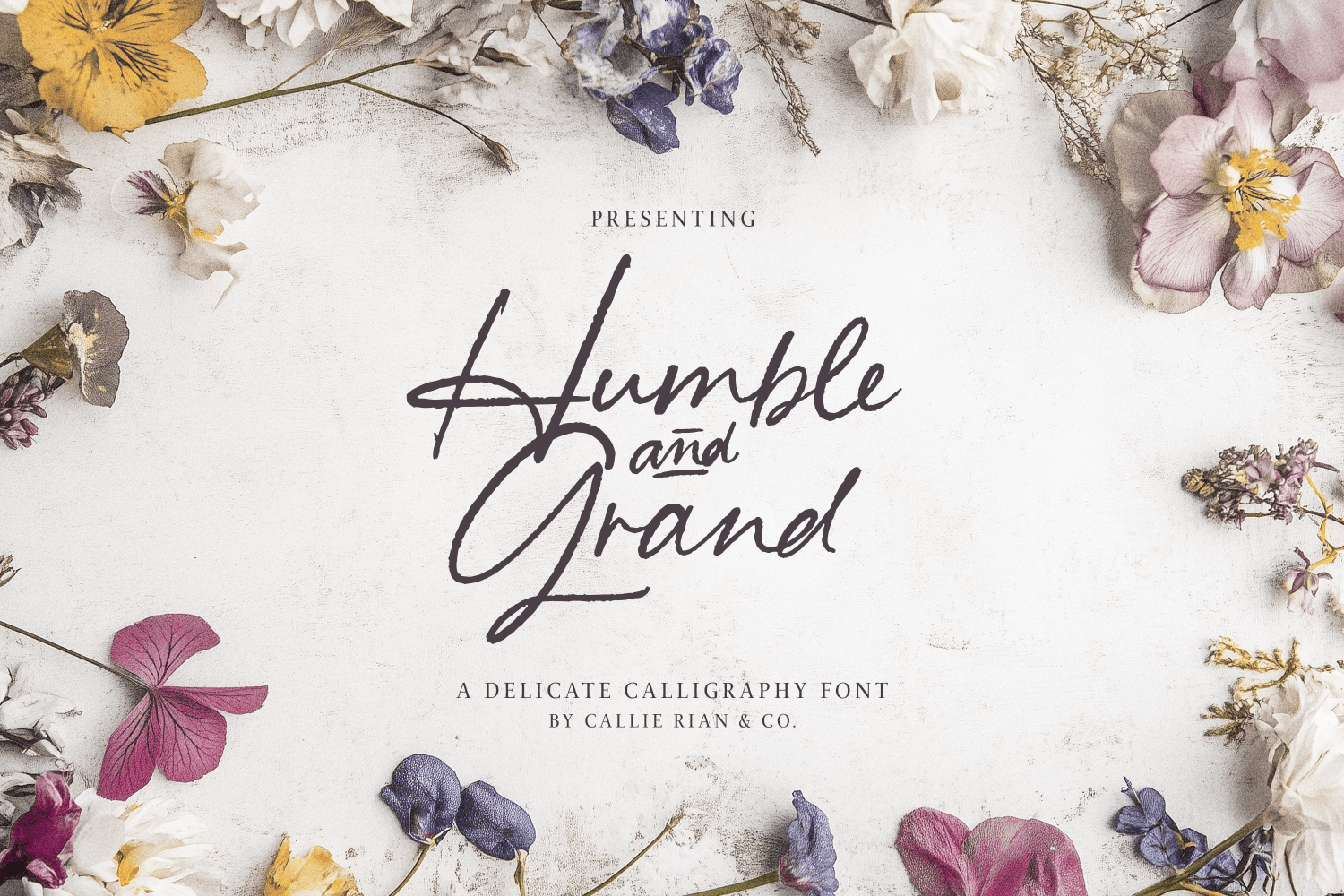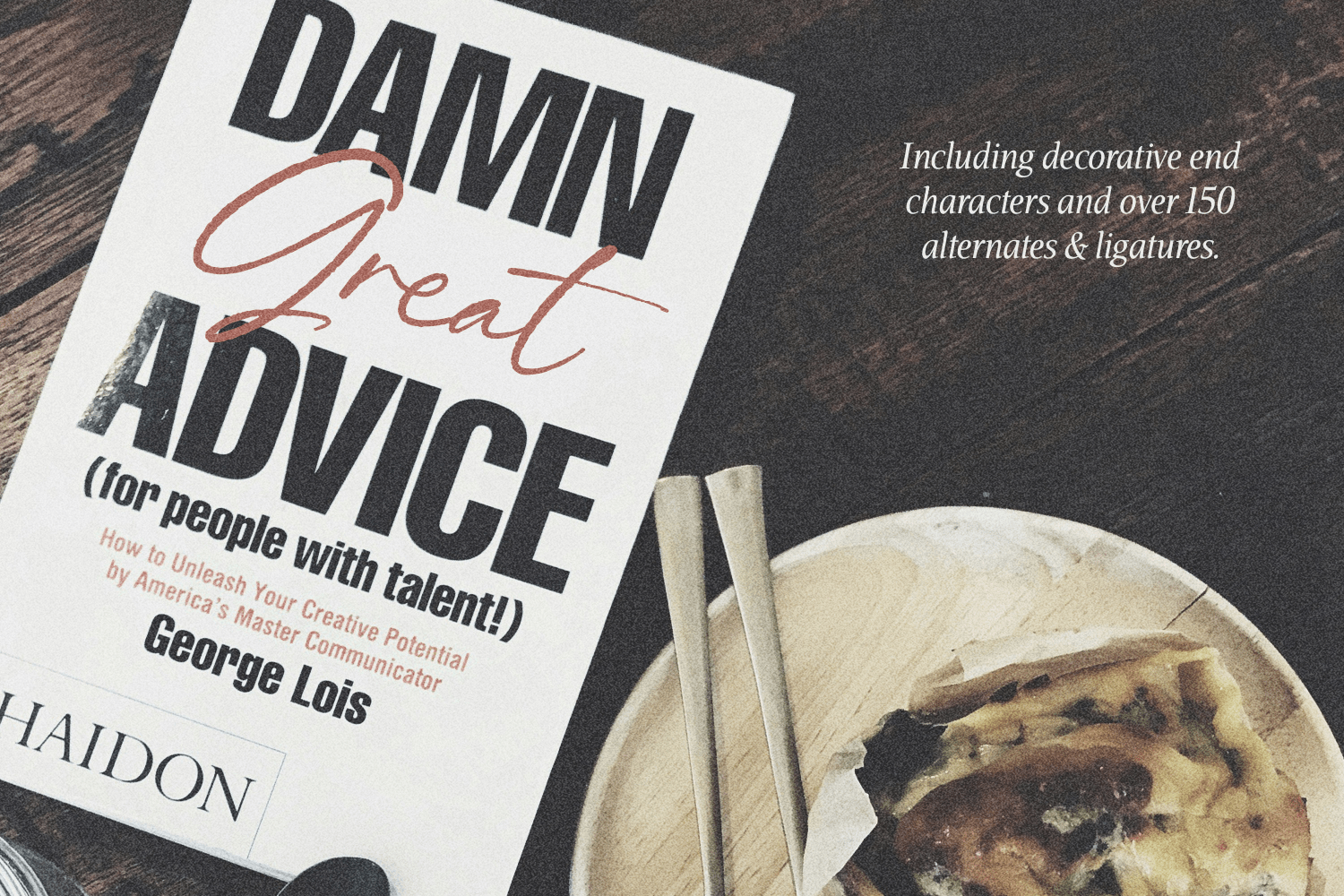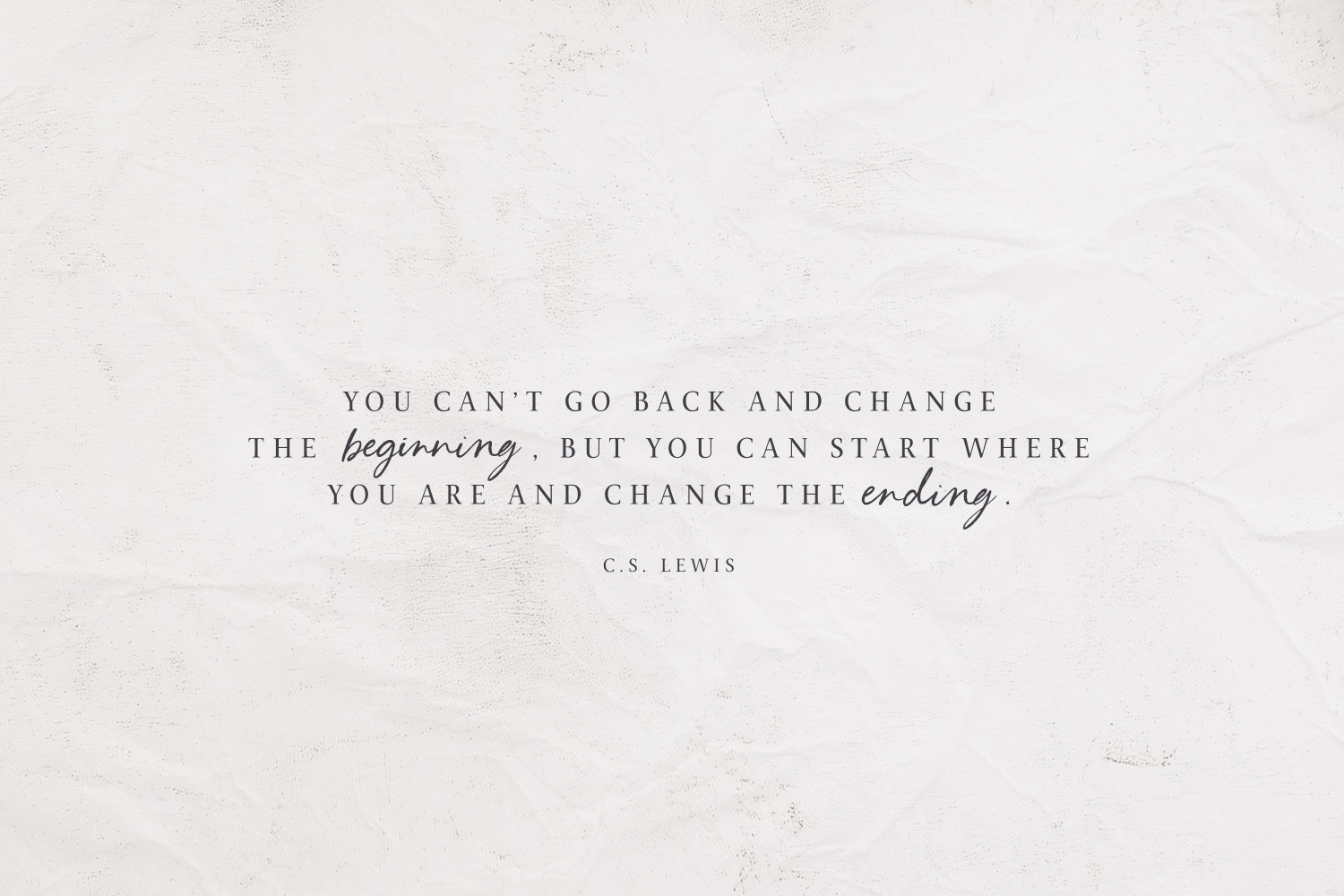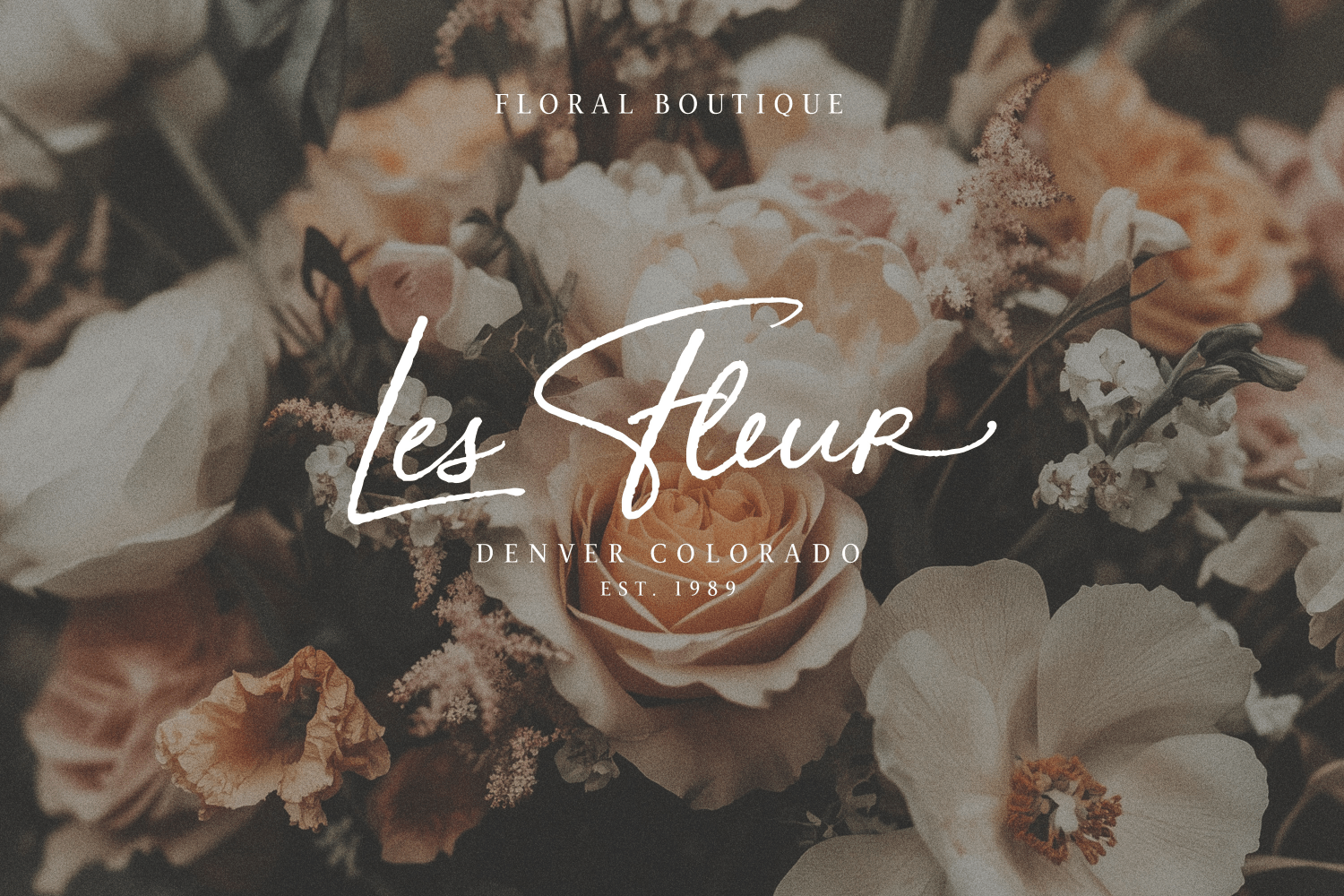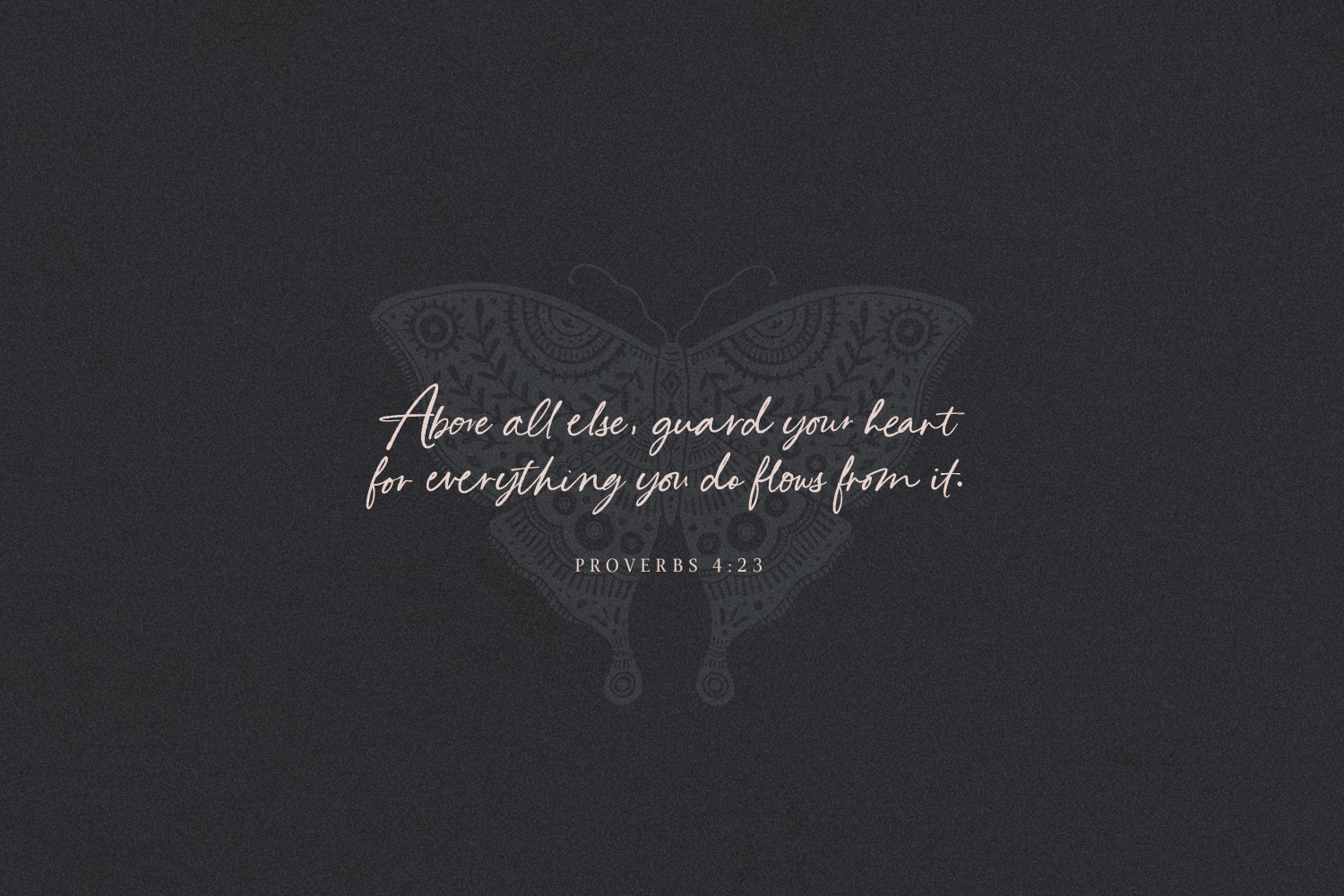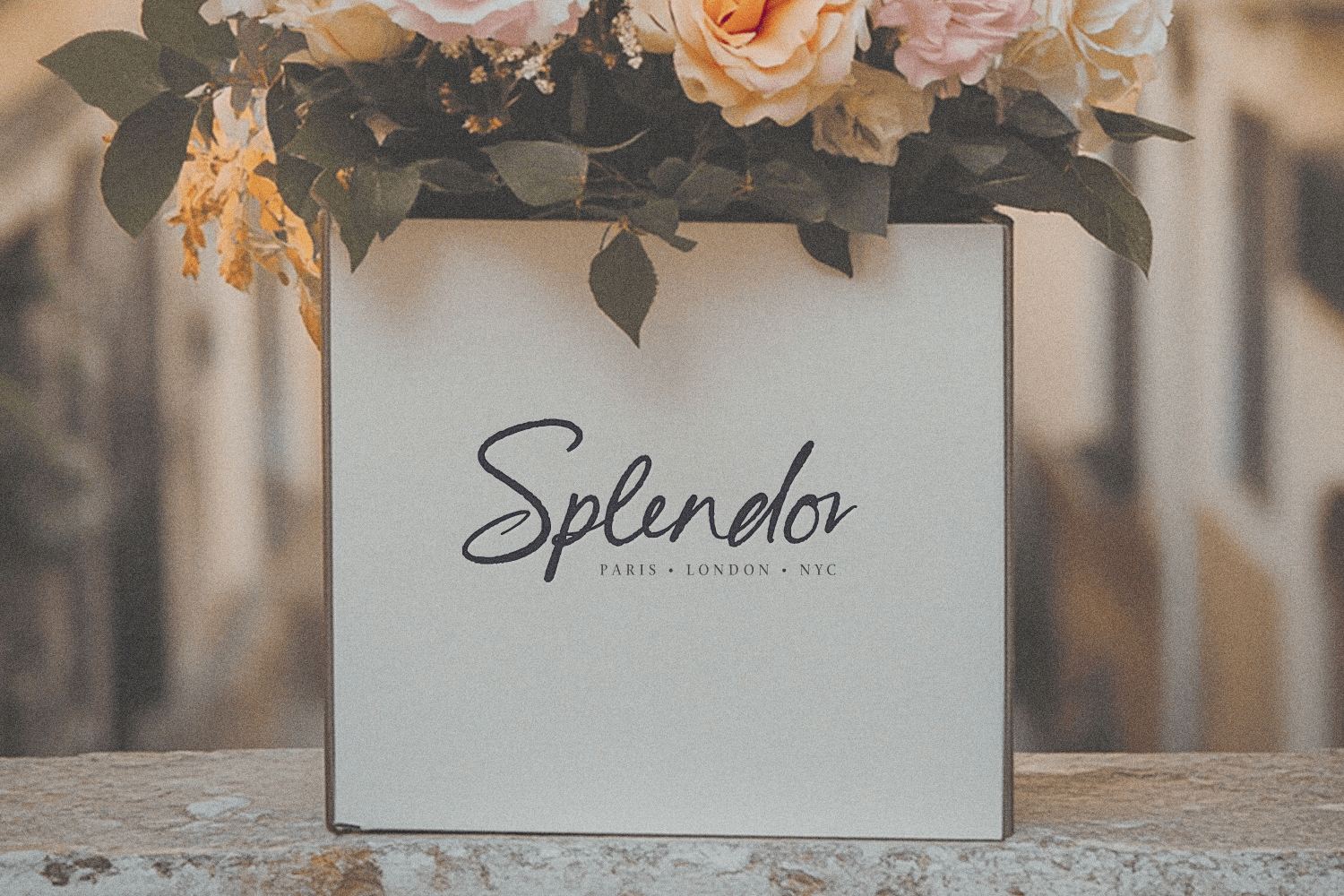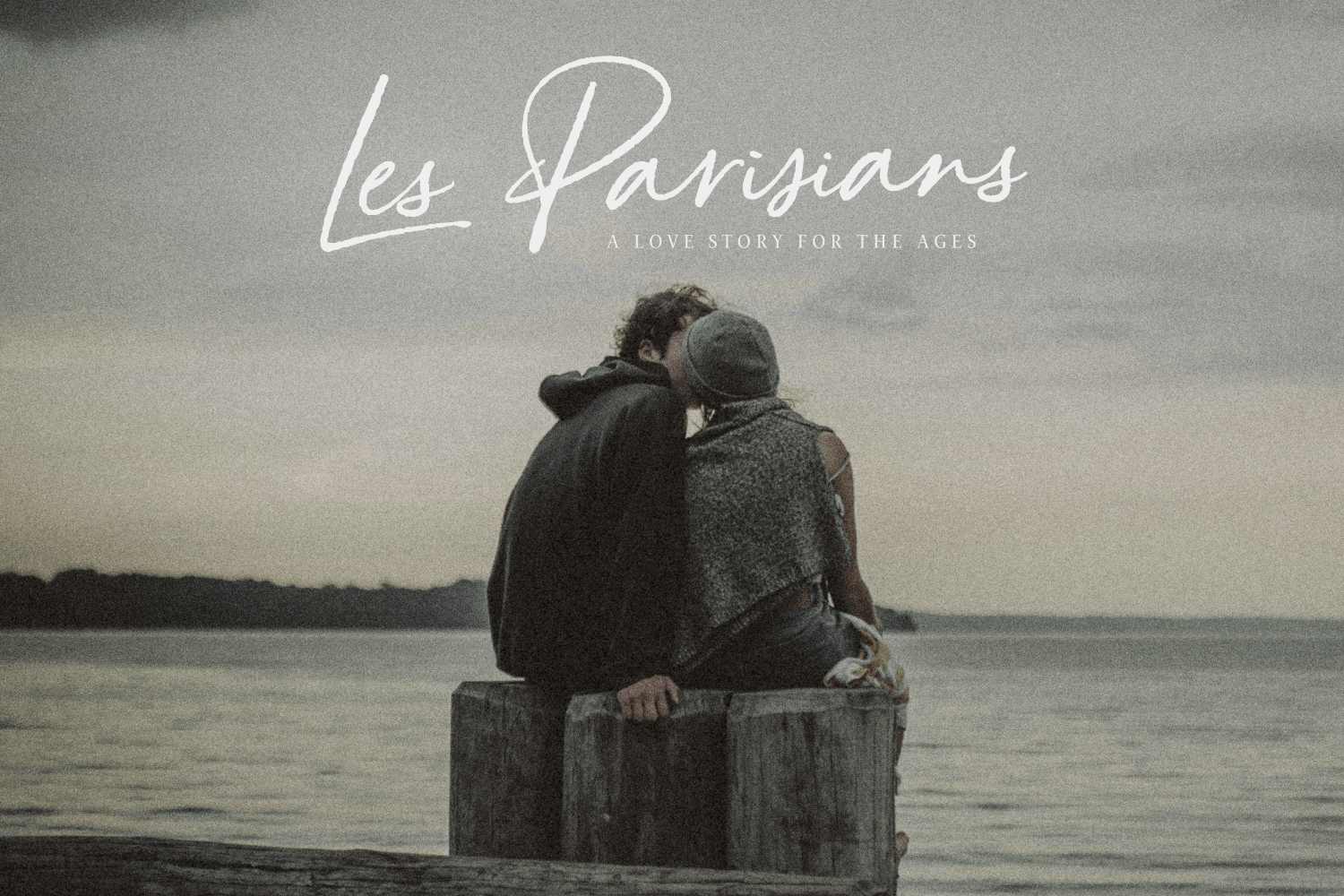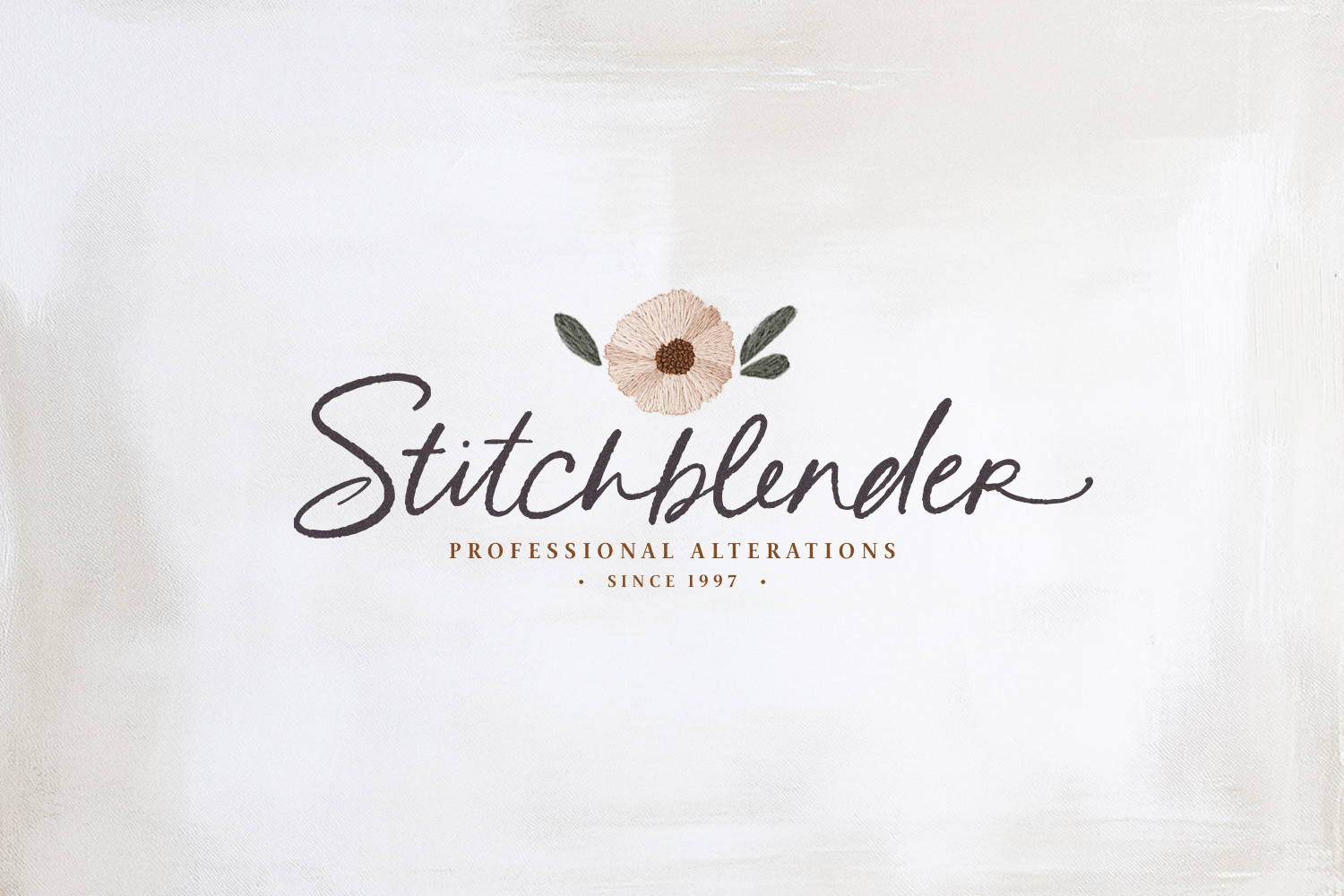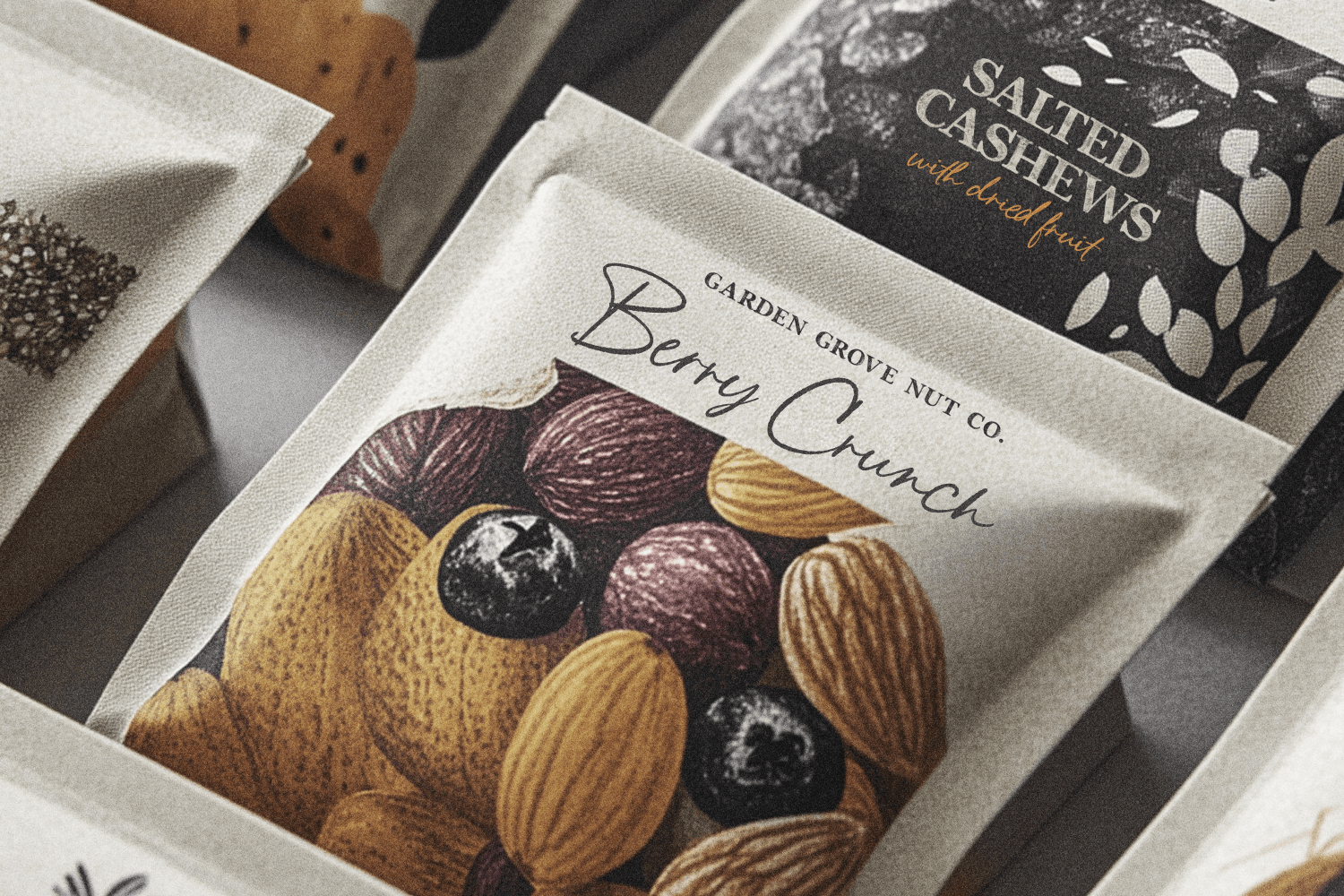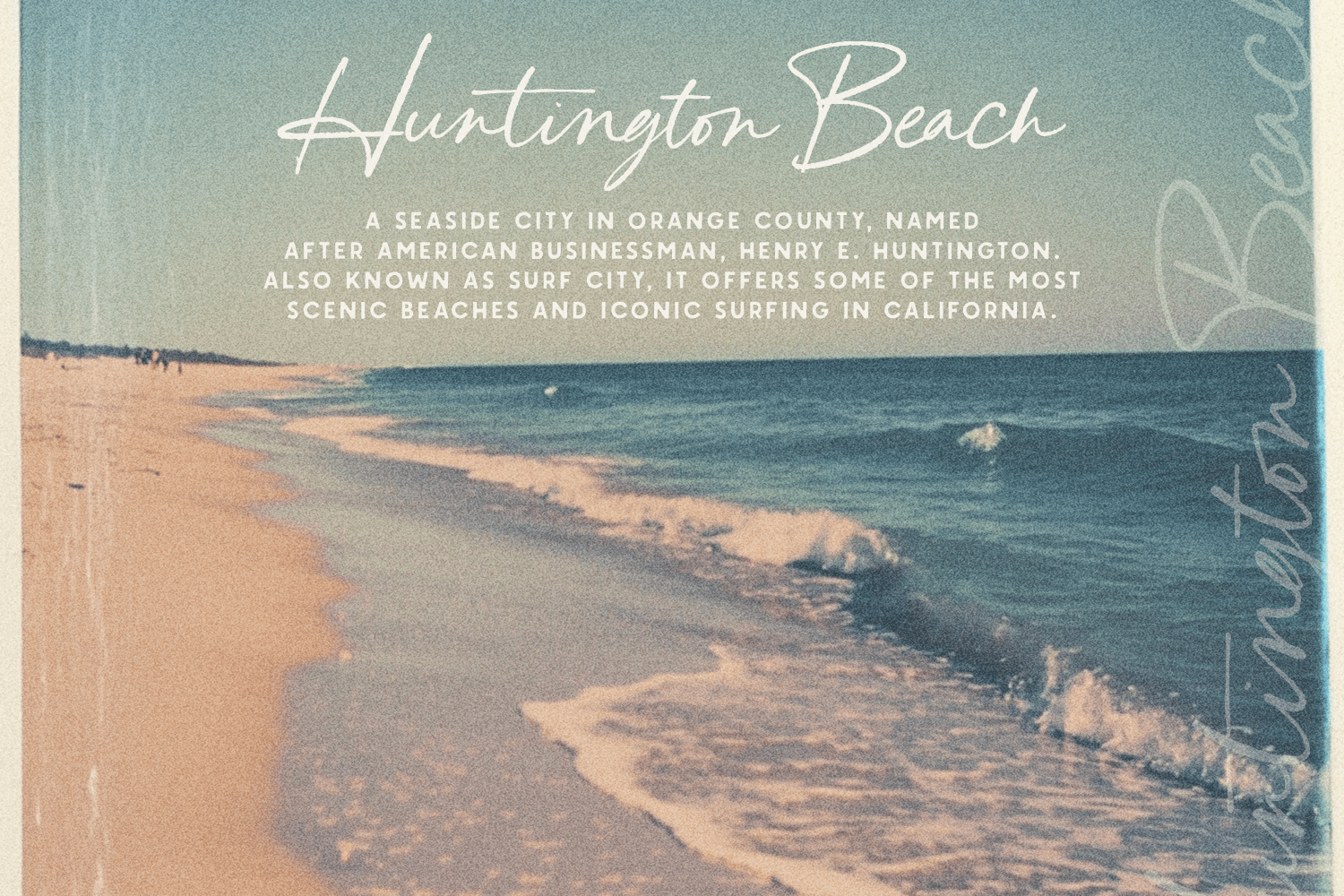
Humble & Grand Handwritten Script
Say hello to Humble & Grand! I have been working on this one since August, and she’s finally ready. This adorable handwriting font is the most comprehensive script I’ve ever created, including a FULL set additional uppercase glyphs, and 225 additional ligatures, alternates and end characters, plus a bonus set of ampersands and catchwords. Oh, and I almost forgot, a bonus slanted version in case you’re feeling extra fancy! Humble & Grand is gorgeous on quotes, packaging, editorials, logos and book covers. Use the decorative ends to add a touch of elegance to wedding invites or signage!